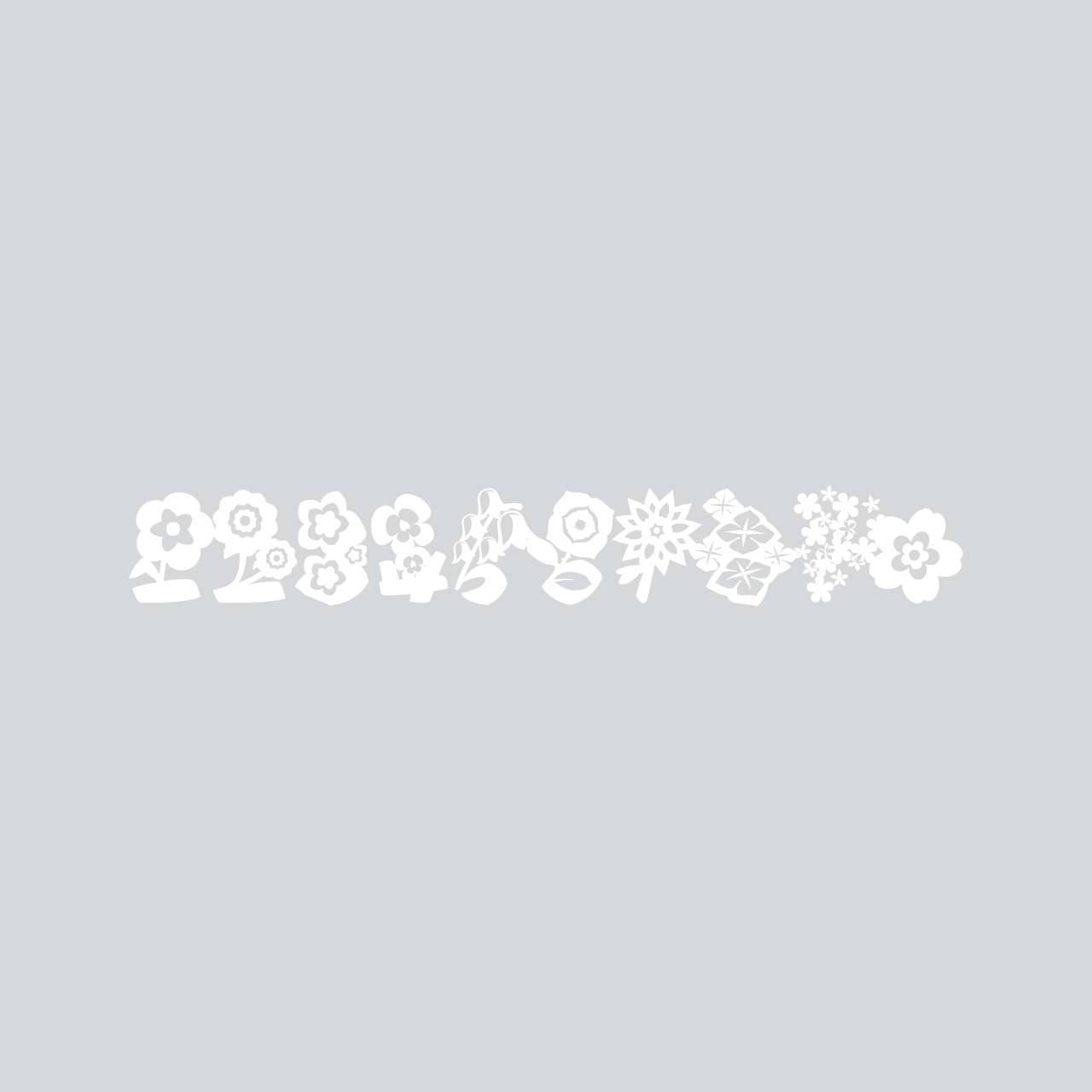
April is a season of flowers in earnest.
Wild flowers, which were shrunk in the winter, showed me in a variety of forms and dizzy in various forms.
However, the number of numbers turned into flowers was quietly grotesque, so I designed the calendar with a speech and unstable atmosphere.
And every weekend, I made a number of flowers, so I forgotten the time and went to see the flowers.
Sandoll Blossom 01 Seed 01 Seed
Sandoll Blossom 02 Bloom
Sandoll Blossom VF VF